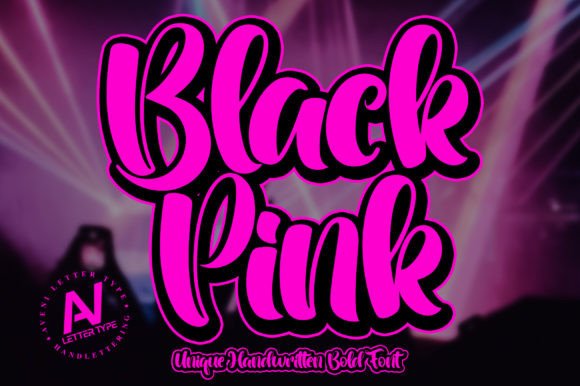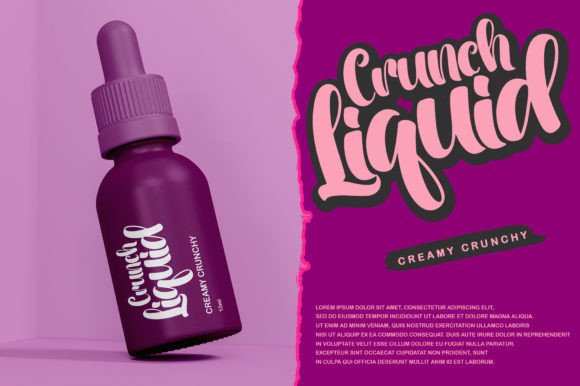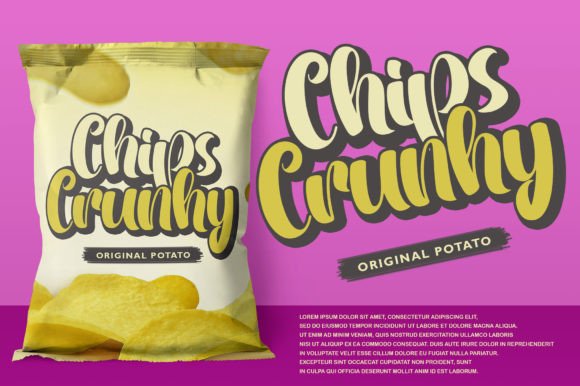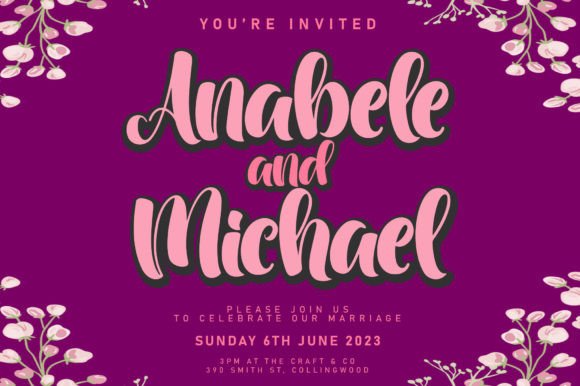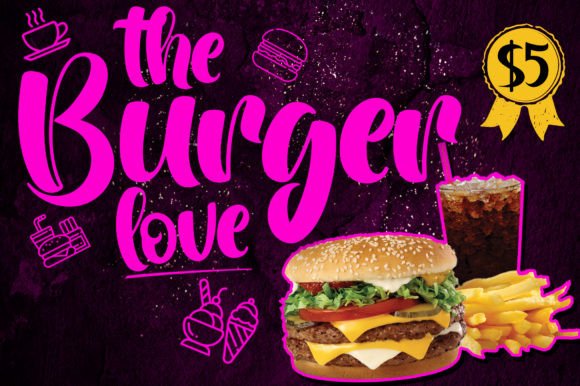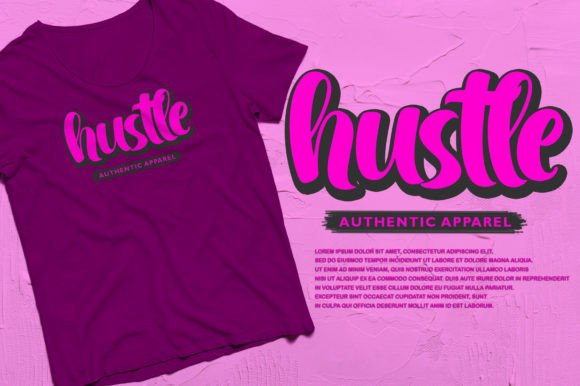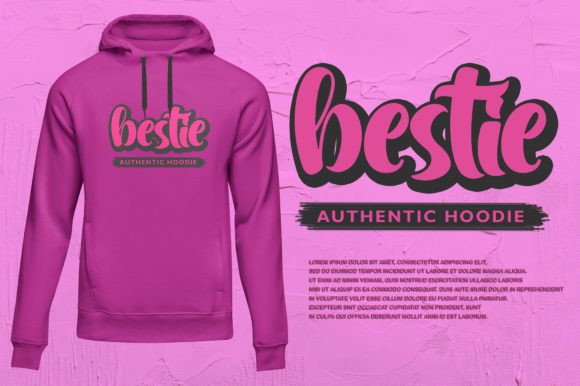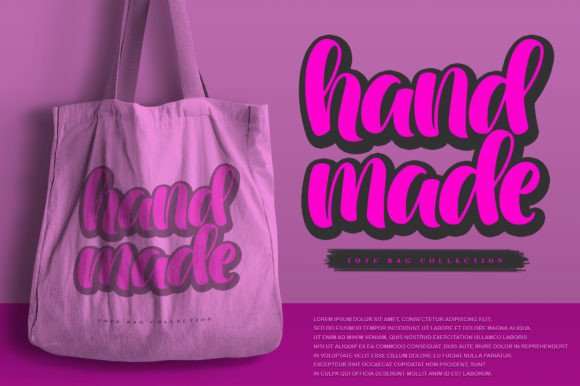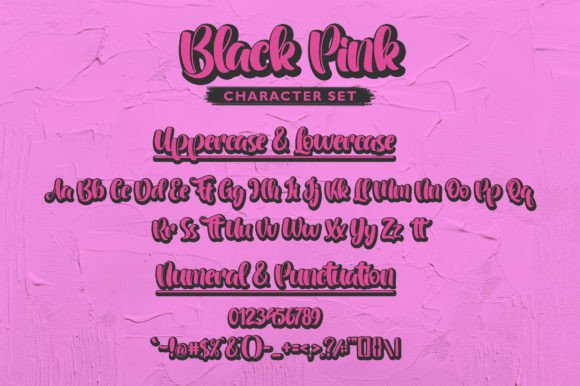
Black Pink Font
Introducing Black Pink, a fun and bold handwritten font that radiates impeccable friendliness. Whether you’re engaged in crafts, digital design, presentations, or creating greeting cards, this font has the potential to become your favorite go-to choice, no matter the occasion!
The bold and playful nature of Black Pink adds a touch of vibrancy to your designs. Its handwritten style conveys a sense of friendliness and approachability, making it suitable for a wide range of applications.
Imagine Black Pink injecting a lively and dynamic vibe into your digital designs or presentations, where its bold strokes capture attention and convey a sense of energy. Picture it bringing a fun and friendly touch to your crafted greeting cards, making each message feel warm and engaging.
Black Pink is more than just a font; it’s a creative companion that adapts seamlessly to various design contexts. Its bold and fun characteristics ensure that it becomes a staple in your font collection, ready to infuse a sense of playfulness into your projects.
Add Black Pink to your font library and witness how it effortlessly becomes your favorite font for a multitude of occasions. Let its fun and bold handwritten style be the element that brings joy and friendliness to your creative endeavors!